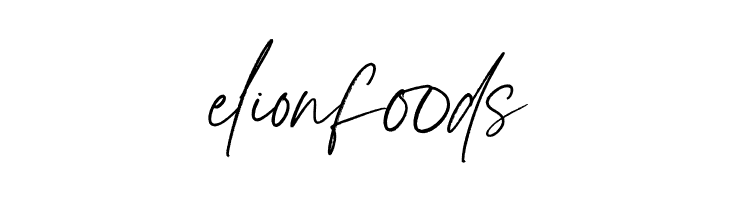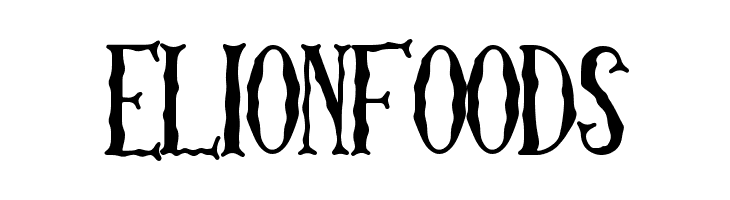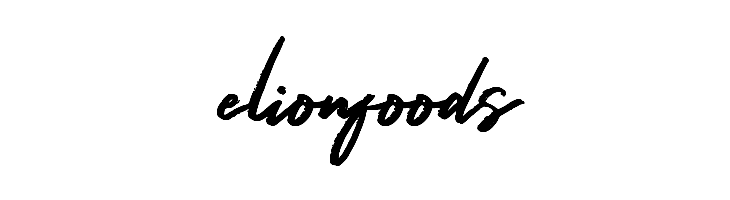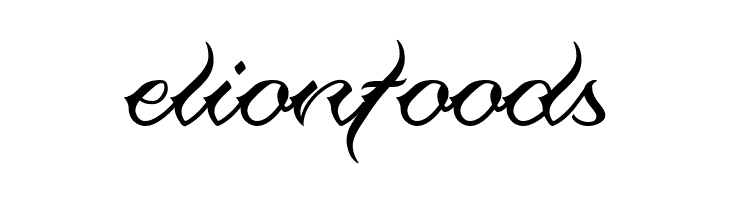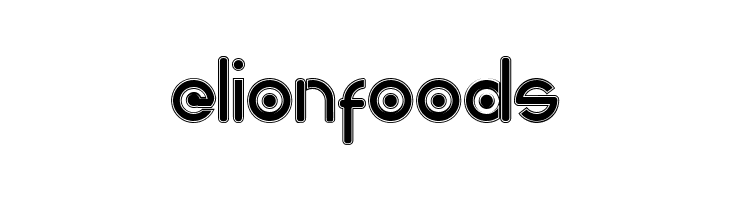
A casual, handwritten font with a flowing and dynamic style.
A spooky, hand-drawn font with jagged, elongated characters.
A dynamic, cursive script font with fluid, interconnected letters.
An elegant, fluid script font with a sophisticated, handwritten style.
A dynamic and flowing script font with elegant curves and pointed edges.
A lively, expressive handwritten font with dynamic strokes and artistic flair.
A decorative and bold font with intricate uppercase and strong lowercase characters.
A bold, flowing script font with elegant, connected letters and a dynamic slant.
A bold, angular font with a futuristic, geometric design.
A modern, geometric outline font with bold, rounded characters.